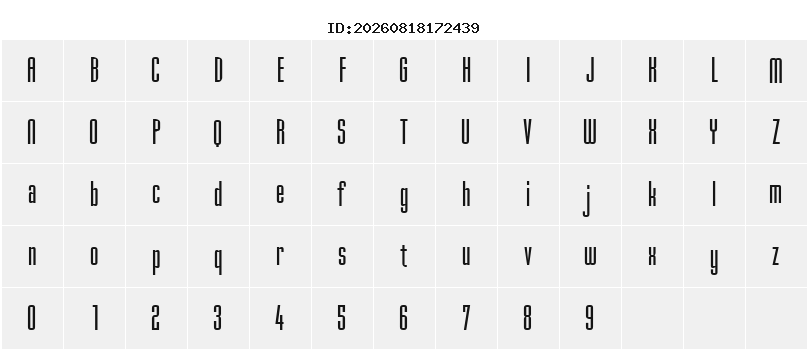
Skyscraper SF Preview
Skyscraper SF.ttf is a modern, elegant sans-serif font designed for ultimate readability and visual harmony. Perfect for branding, headlines, web design, and print materials.